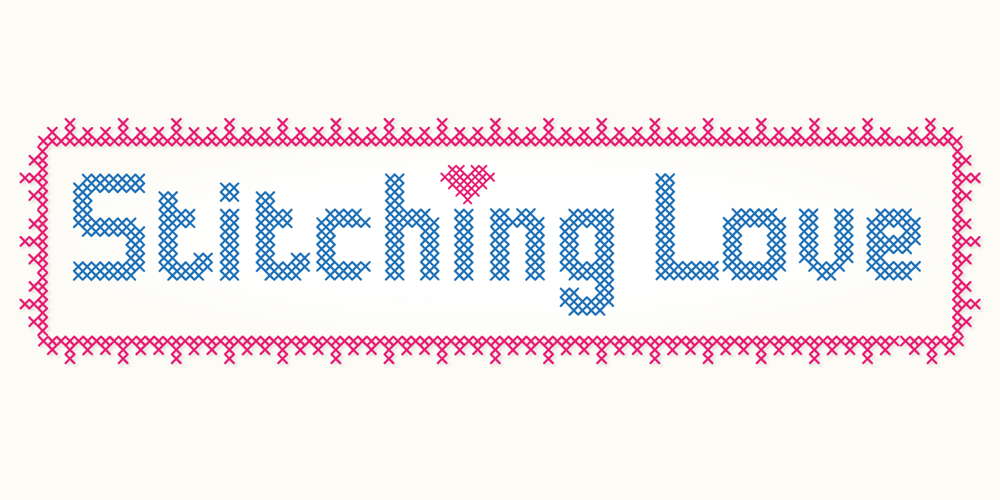
Stitching Love
Stitching Love font
Stitching Love Font Family was designed by Helena Öhman and published by Studio Indigo. Stitching Love contains 2 styles and family package options. Stitching Love is a cross-stitch font made to add that crafty feeling to your design projects. It has both upper- and lowercase sans serif letters and comes with a number of decorative ornaments and border elements that you can combine in many different ways.